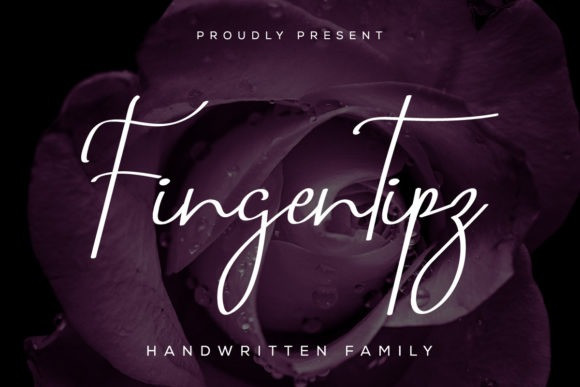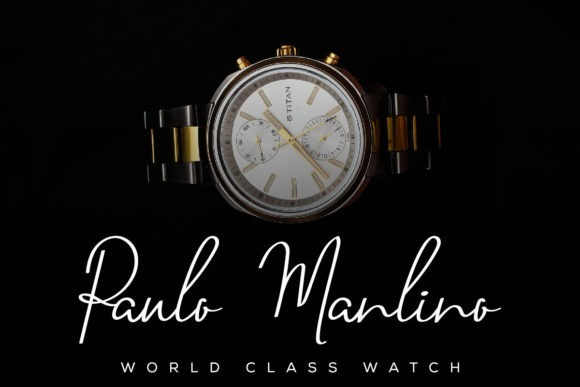
Fingertipz Font
Fingertipz is a sweet and friendly handwritten font. Its natural and unique style makes it incredibly fitting to a large pool of designs. Fingertipz is PUA encoded which means you can access all of the glyphs and swashes with ease!